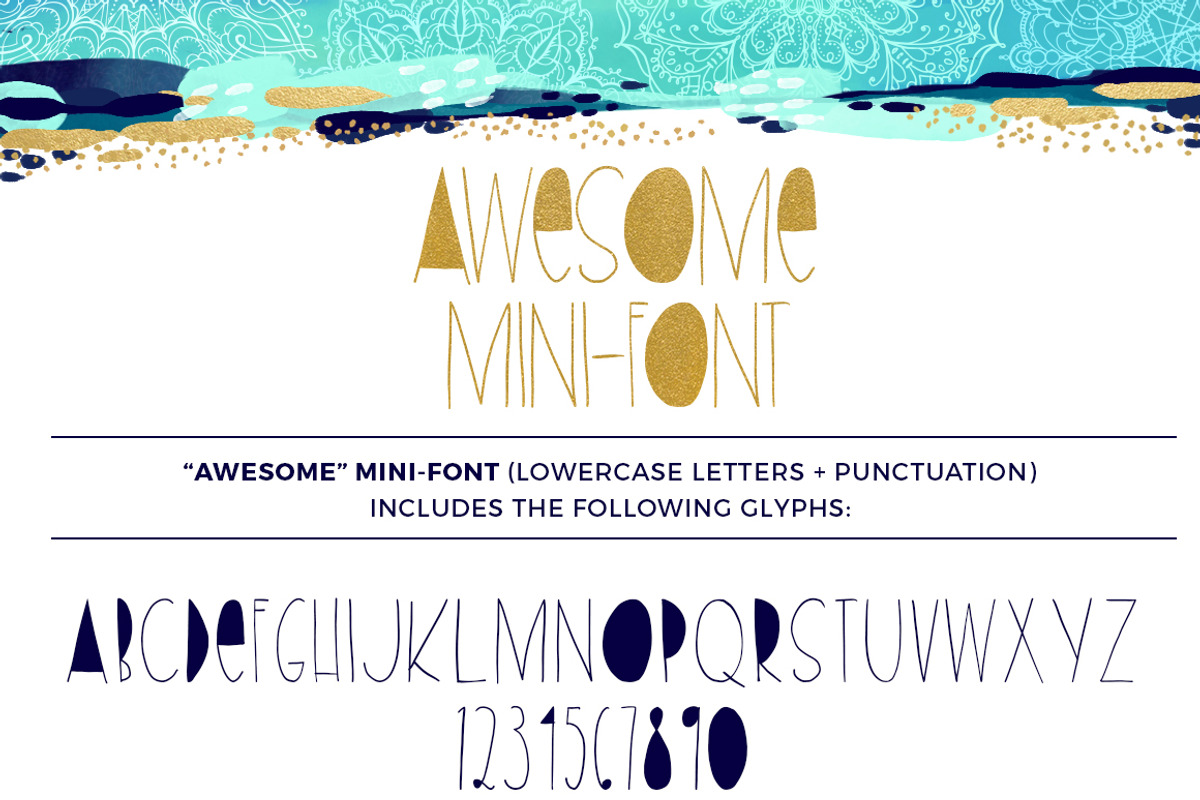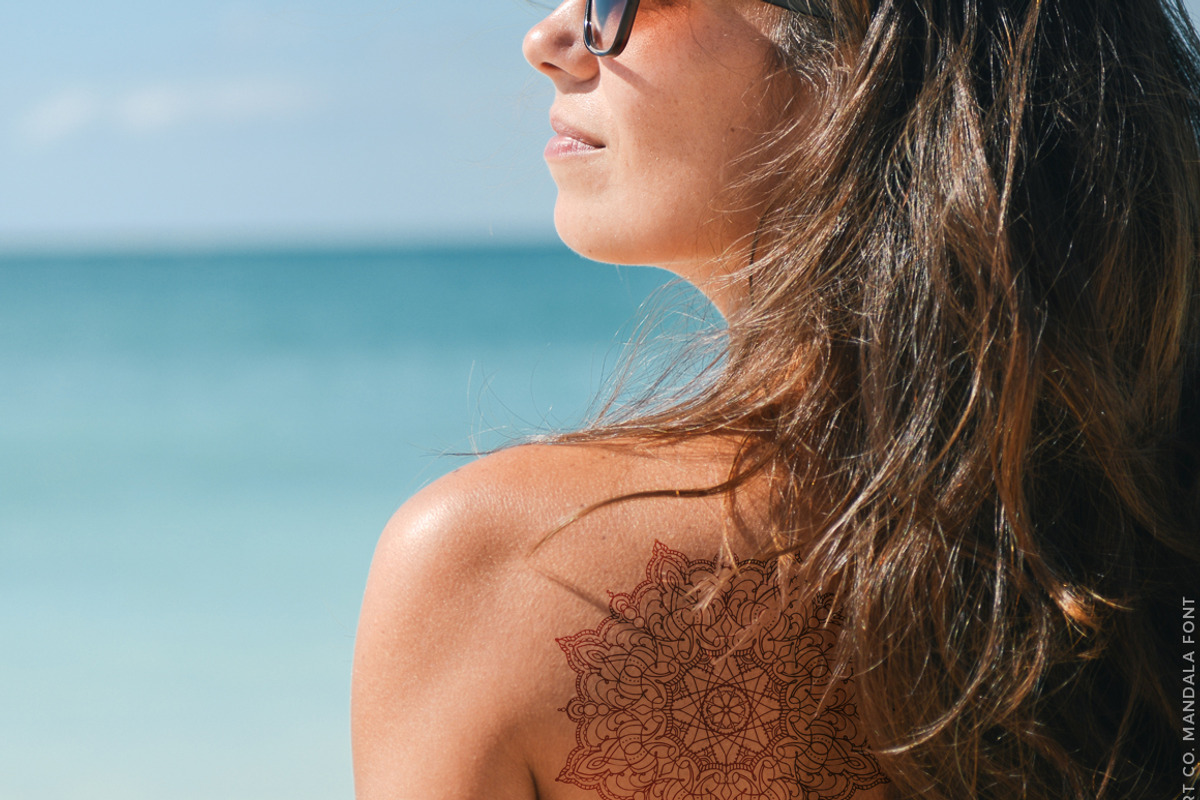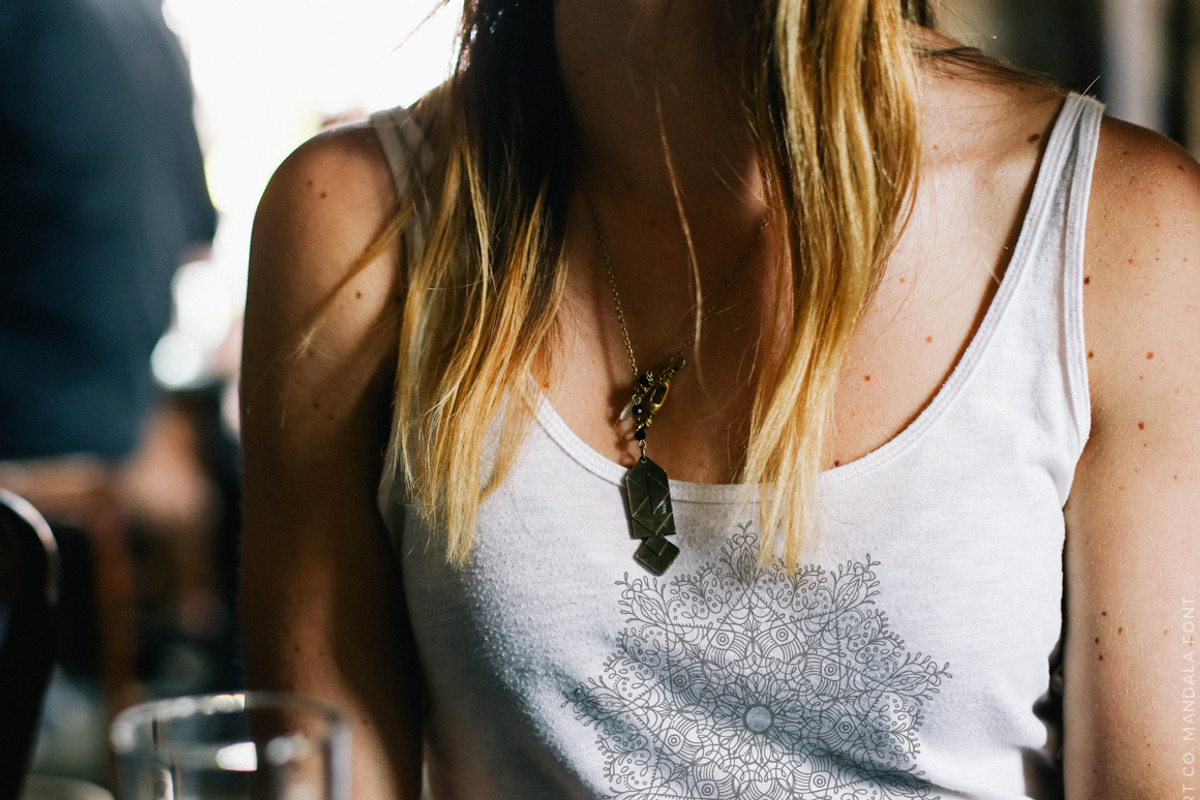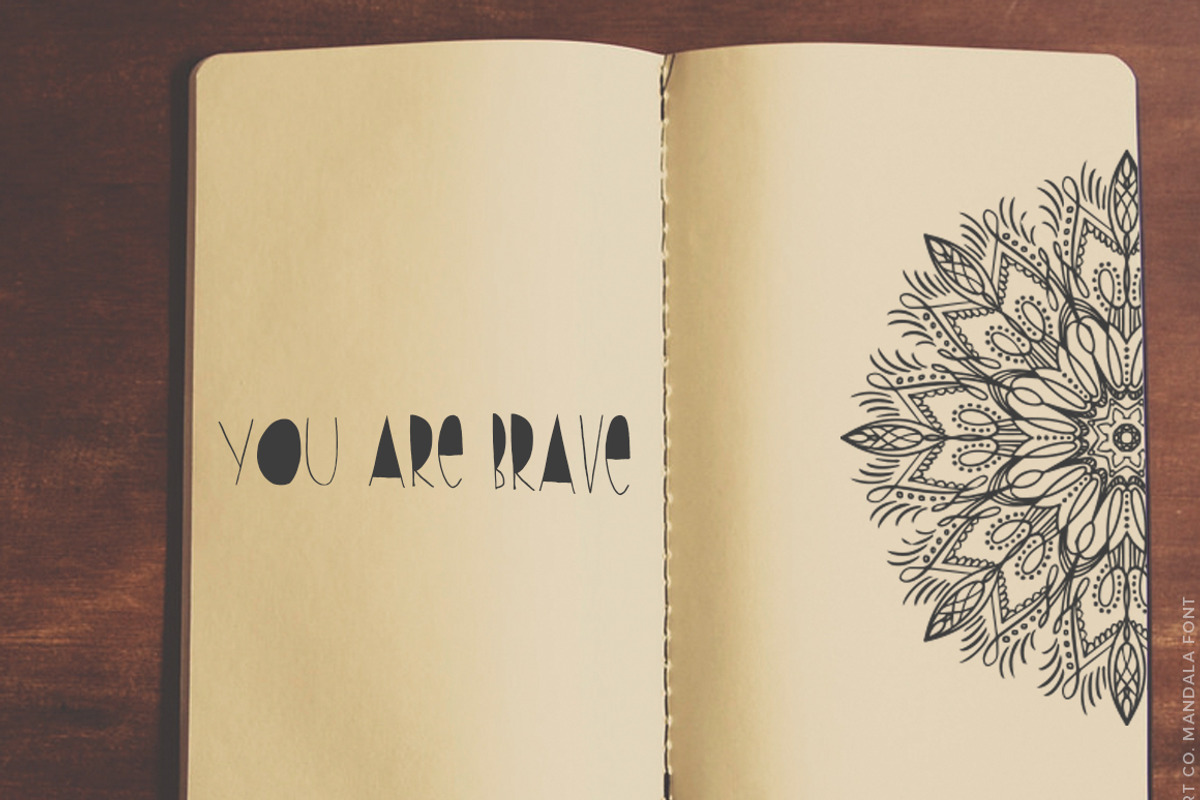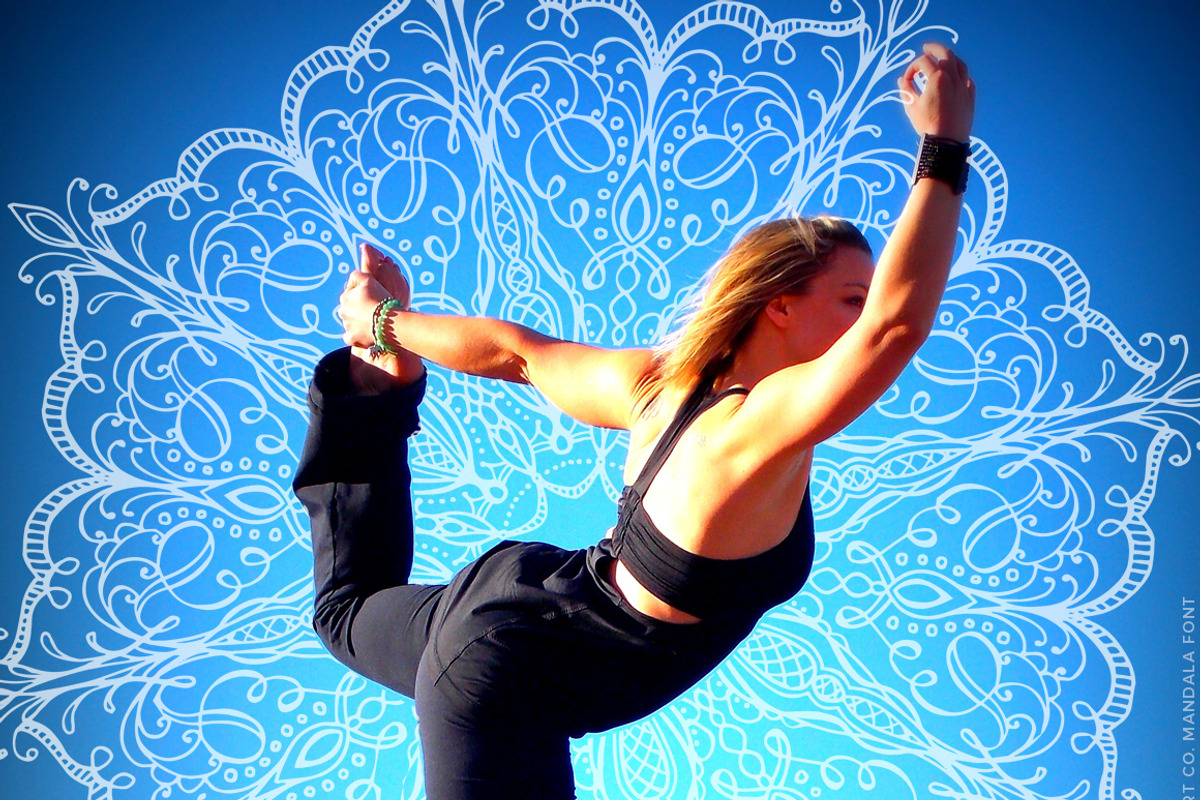
Mandala Symbols Font
Mandala Symbols Font by Lianne Tokey Illustration is a font selected for branding, posters, packaging, typography.
- These handcrafted Mandala illustrations have been added as the UPPERCASE glyphs of this font.
- Access all of the "Awesome" glyphs when you type in lowercase and add punctuation.
Why Mandala Symbols Font is worth a look
Mandala Symbols Font by Lianne Tokey Illustration fits naturally into Branding, posters, packaging, typography.